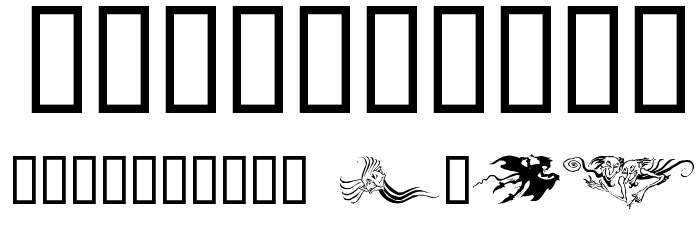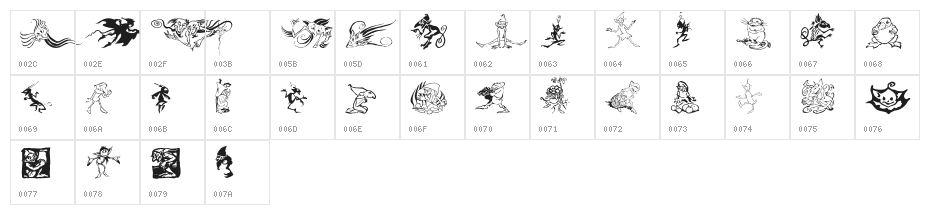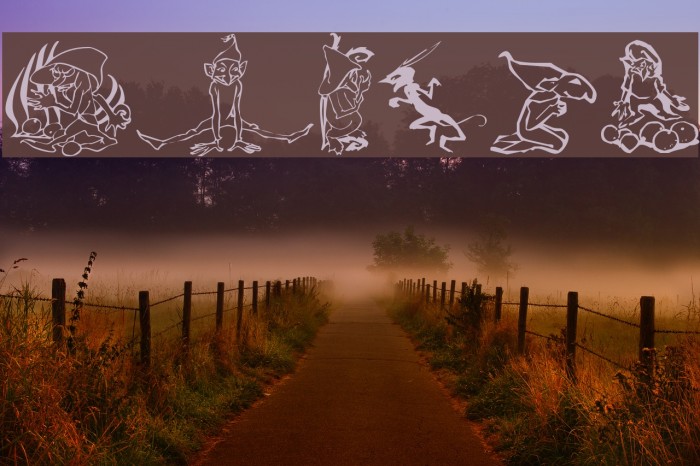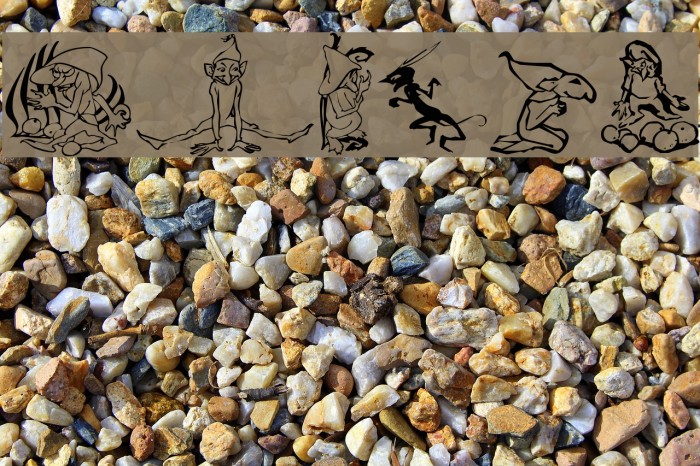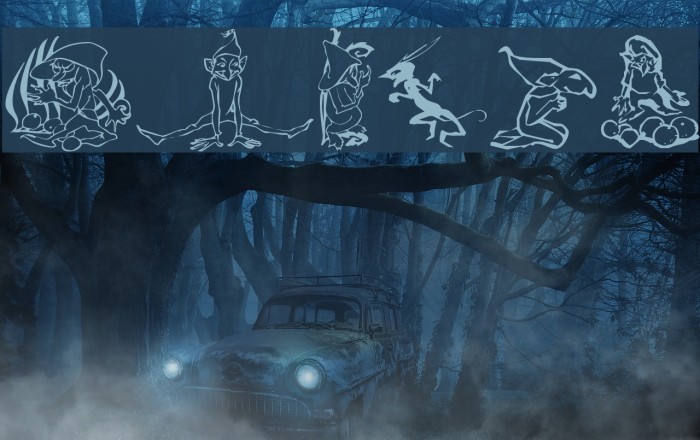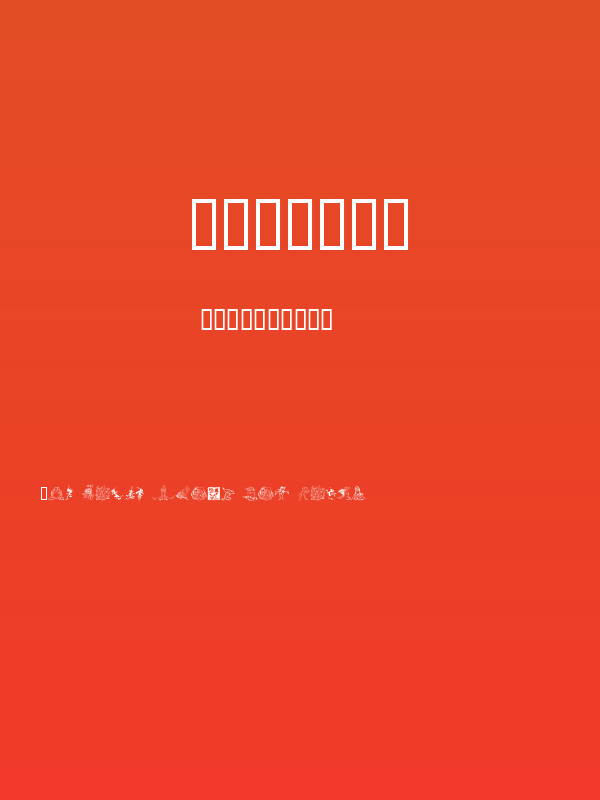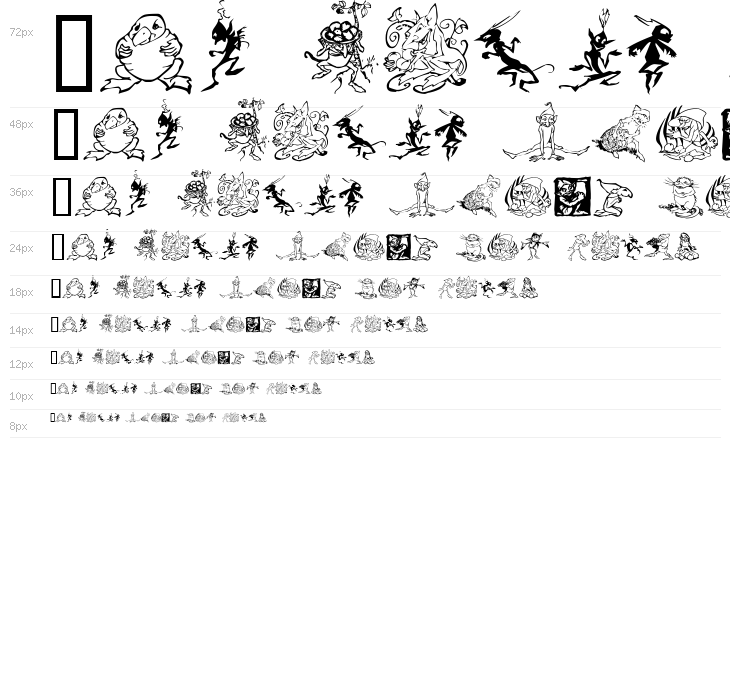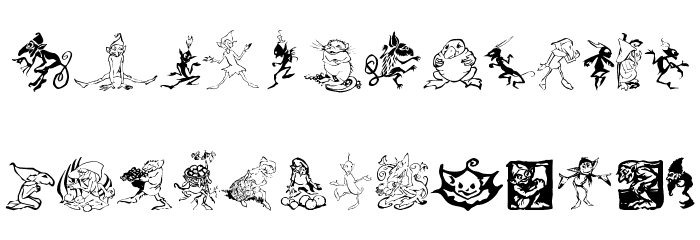
Goblins Font
Goblins Description
This is not a traditional font but rather a collection of whimsical and playful goblin illustrations. Each character is represented by a unique goblin figure, each with its own distinct personality and style. The illustrations are detailed, with expressive poses and intricate line work that bring each goblin to life. The style is reminiscent of fantasy art, with a touch of humor and mischief. These characters are more suited for decorative purposes rather than textual communication, offering a creative and artistic element to any project.
| Overall Style | Decorative, Fantasy |
| Use Case | Decorative art, Illustrations, Themed designs |
| Proposed Projects | Ideal for fantasy-themed designs, children's books, game graphics, or decorative art projects. |